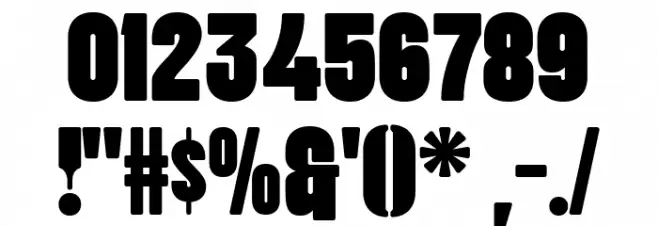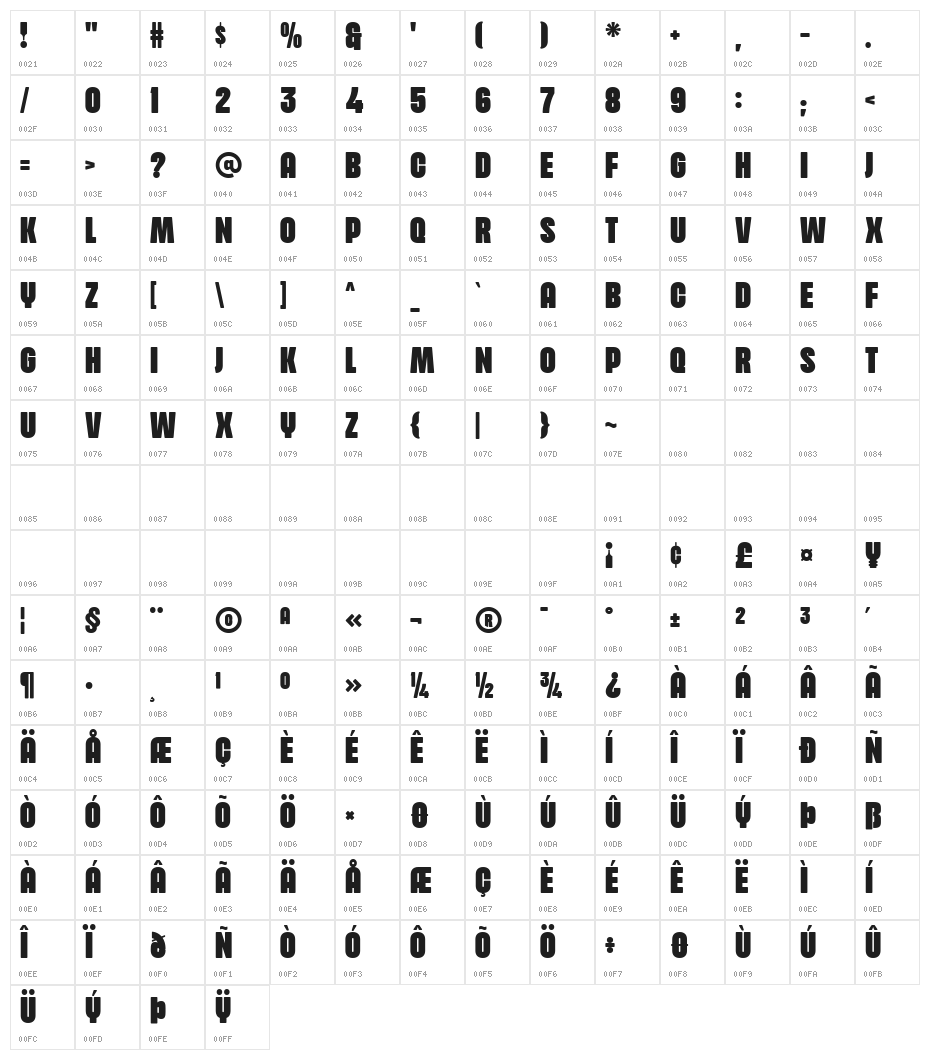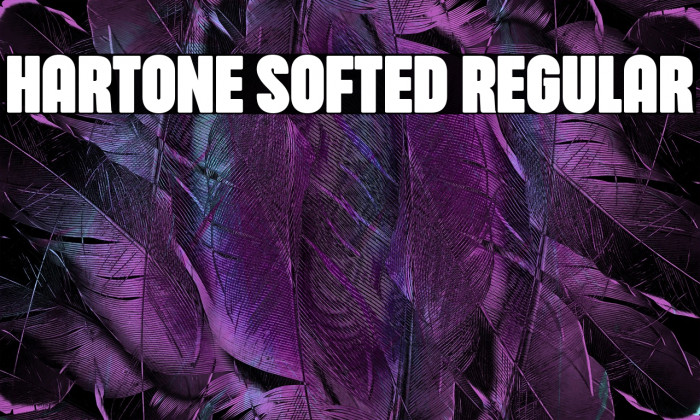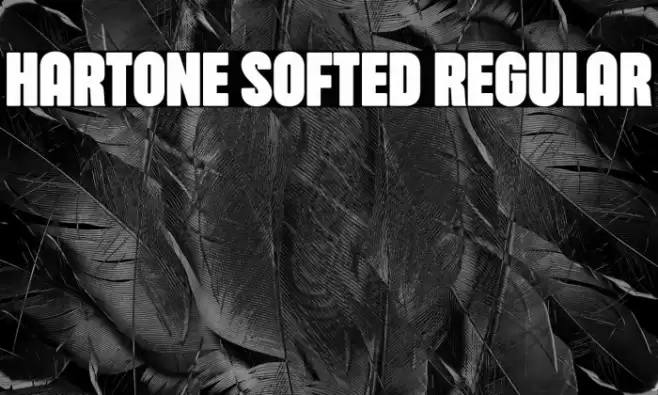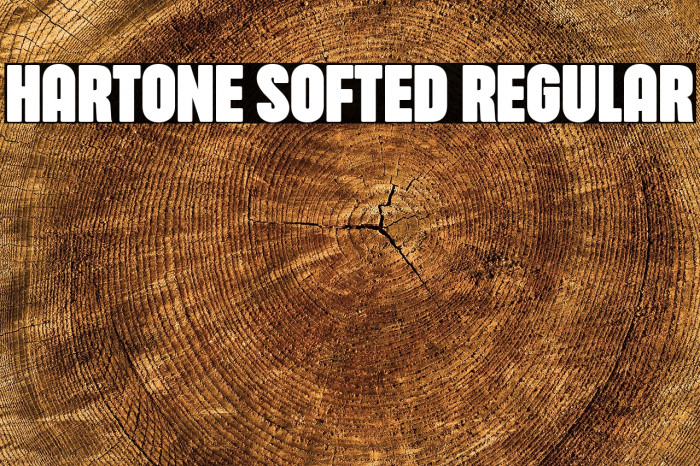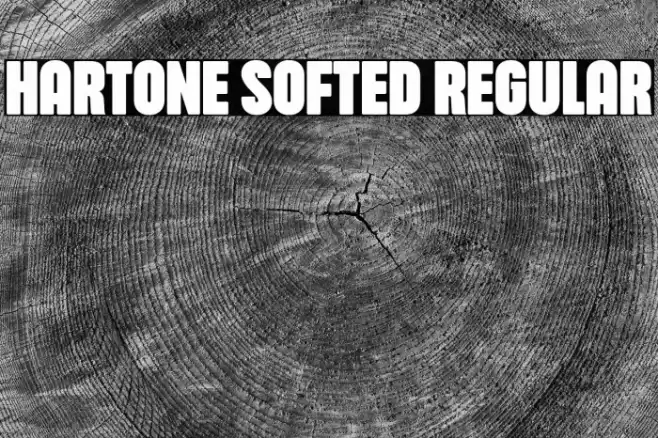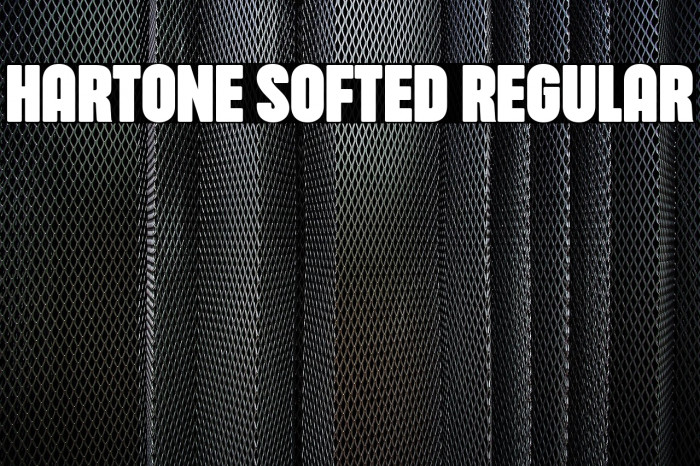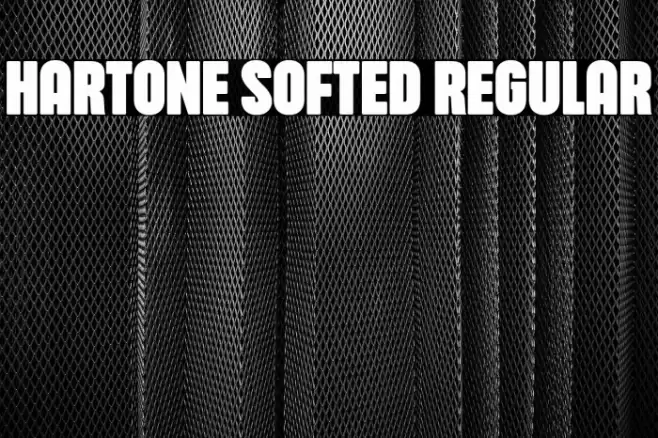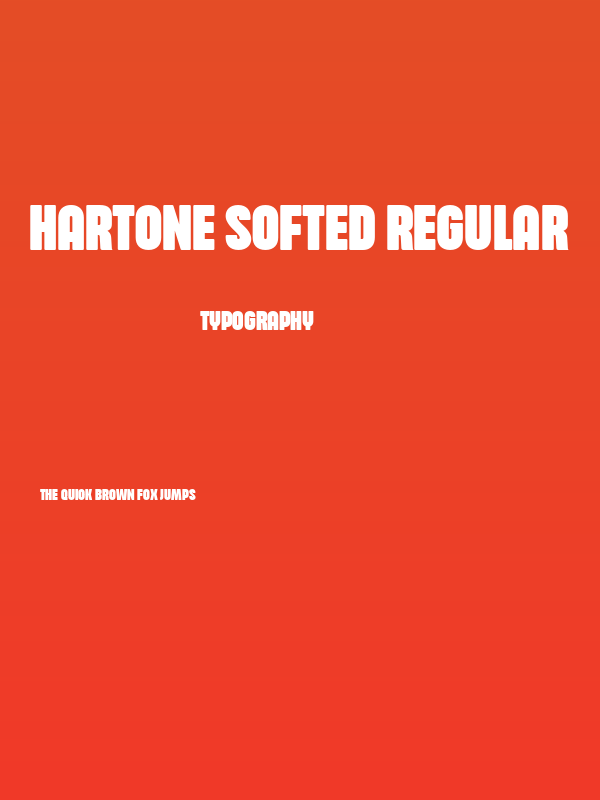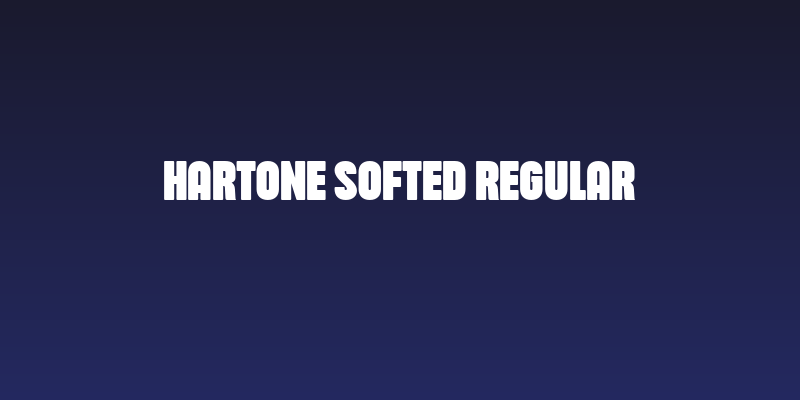
Hartone Softed Regular Font
Hartone Softed Regular Description
This font features a bold and impactful design with thick, uniform strokes that create a strong visual presence. The characters are tightly spaced, enhancing the boldness and making it ideal for attention-grabbing headlines. The uppercase and lowercase letters maintain a consistent weight, contributing to a cohesive look. The numerals are equally bold, ensuring they stand out in any context. Special characters are designed with the same thickness, providing a harmonious appearance across all glyphs. This font's style is modern and assertive, making it suitable for projects that require a strong, confident typeface.
| Proposed Projects | Ideal for branding, advertising, poster design, and any project requiring a strong visual impact. |